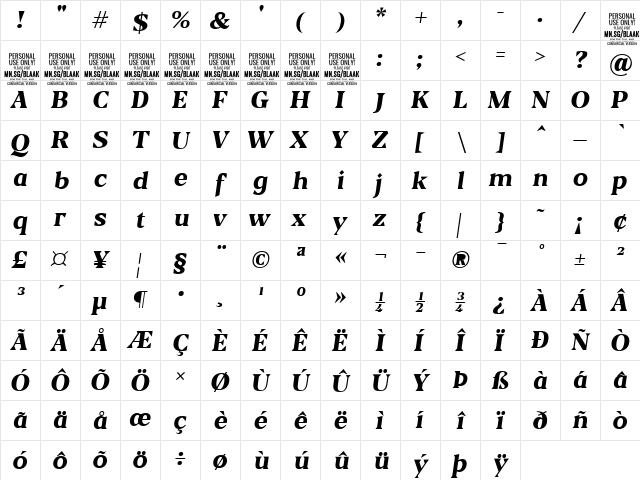
Blaak ExtraBold PERSONAL USE Italic Font Preview
Design Context for Blaak ExtraBold PERSONAL USE Typeface
Blaak ExtraBold PERSONAL USE is a composed and adaptable typeface that performs quietly and consistently across a wide range of design contexts. Its italic angle brings a sense of urgency and motion to the letterforms. Its bold stroke weight gives it real presence on the page.